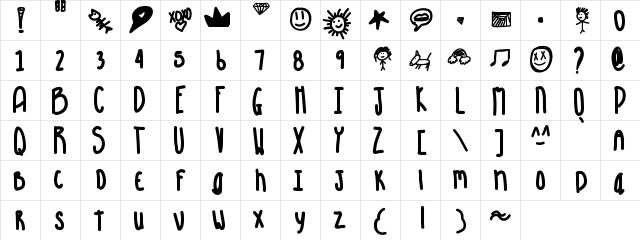
Aquarious Medium Free Font
Aquarious Medium
Design Context for Aquarious
Aquarious is a composed and adaptable typeface that performs quietly and consistently across a wide range of design contexts.
Pro Tip: Use Aquarious in both headline and body roles to test its range before committing to a single application.